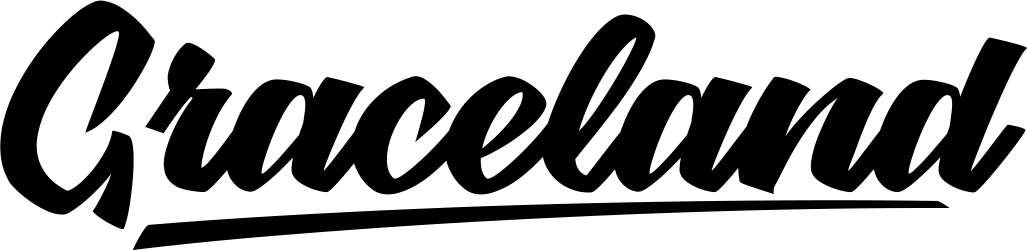
Graceland Font
Inspired by an artistic hand drawing to convey a friendly and dreamy feeling, this script font with a strong link between letters emerged, pushing it into unreadability.
This old-school font arises in a bold and warm design that can make up for its lack of numbers or punctuation. Rest assured that Graceland is so attractive that can be at the top in poster design, fashion, branding, clothing, and other display designs.